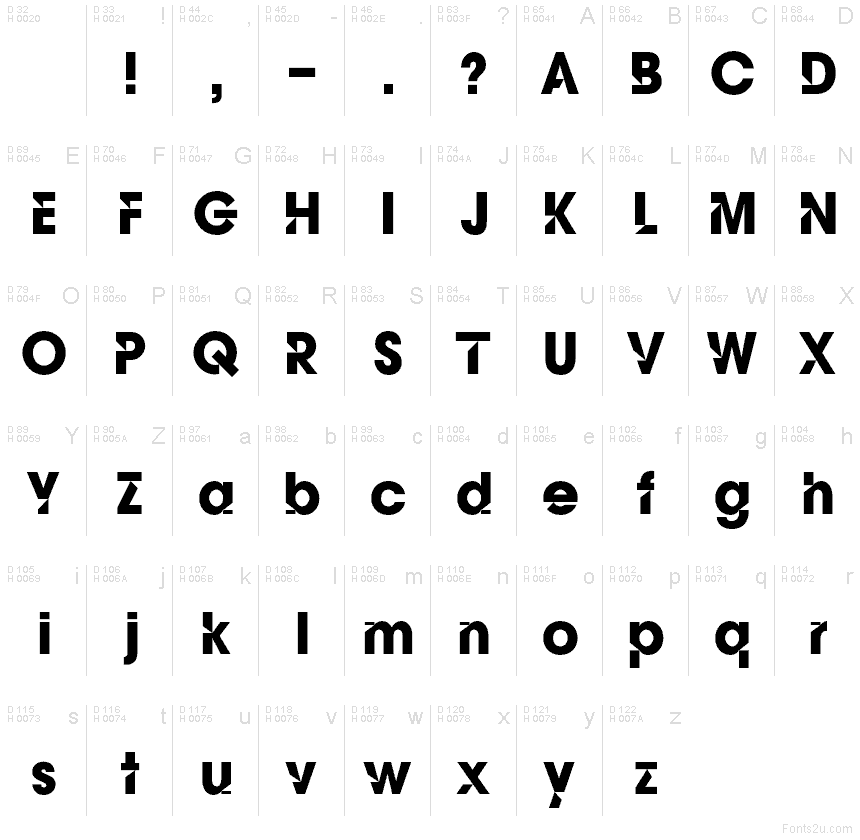
CF Fortusnova Demo Bold
CF Fortusnova Bold font from the CF Fortusnova family by Creatifont Studios is a modern typeface classic. Beautifully constructed as a sans serif font with subtle geometric overtones, it has elegance and precision. Every curve and line of this versatile resource makes it readable in any text or graphic project.
The free CF Fortusnova Bold can be used for headlines for magazines and newspapers, titles for books, websites, applications for mobile devices, stationery, automotive branding (in catalogs), TV ads that require text. Use the font also in shop signage and any text or online ad project such as Google Ads or Instagram stories.